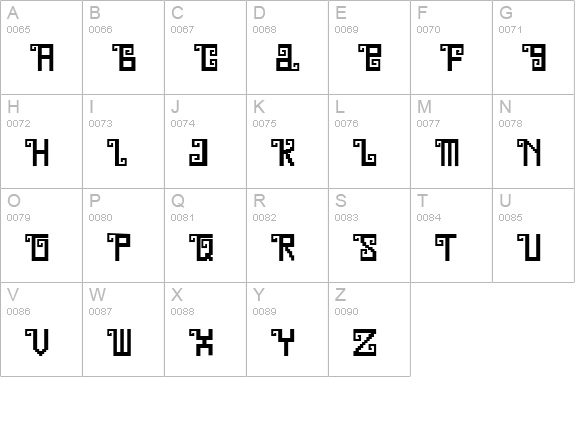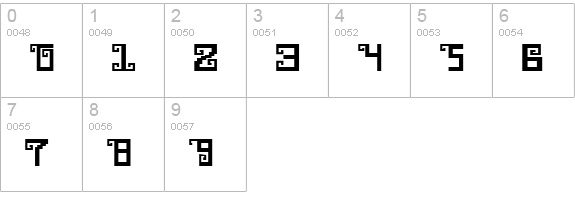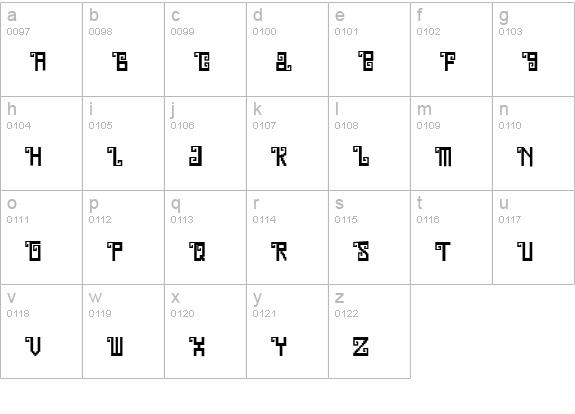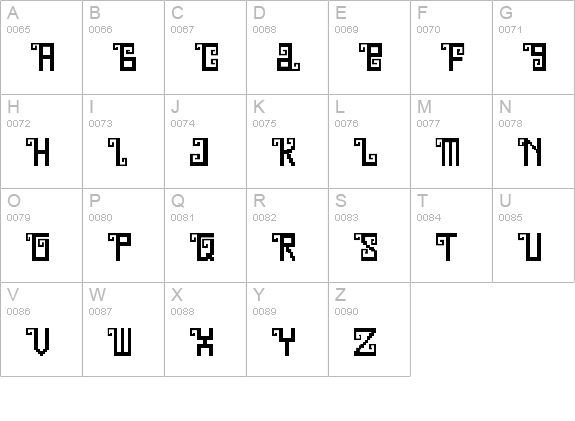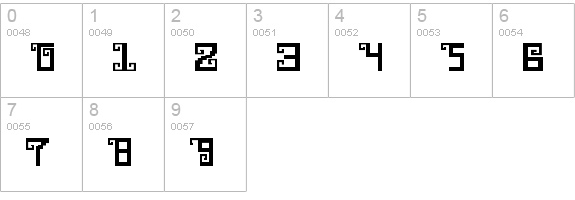
Chapultepec Font Details
Chapultepec font is a modern and stylish typeface that exudes elegance and sophistication. With its clean lines and unique flair, this font is perfect for a wide range of design projects, from branding to editorial design. The versatile nature of Chapultepec font makes it the ideal choice for both print and digital applications. What sets Chapultepec font apart is its free-spirited vibe that brings a sense of creativity and originality to any project. Whether you're designing a logo, website, or poster, this font will help your work stand out and make a lasting impression. Best of all, Chapultepec font is freely available to download at FontsMarket.com, making it accessible to designers of all levels. Don't miss out on this opportunity to add a touch of sophistication and style to your projects with Chapultepec font.